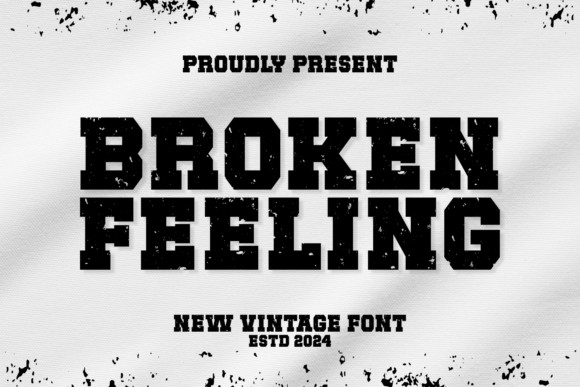
The Perfect Blend of Nostalgia and Edginess: Unleashing the Broken Feeling Font
Have you ever stumbled upon an old photograph, and suddenly, a wave of nostalgia washes over you? The faded colors, the worn-out edges, and the imperfections that tell a story of their own. That’s exactly what happens when you use the Broken Feeling Font – a vintage yet Grunge-inspired typeface that adds a touch of raw sophistication to your designs.
Broken Feeling Font is more than just a font; it’s an experience. It’s the collision of classic styles and contemporary culture that creates a unique visual imprint, setting your designs apart from the rest. Whether you’re a seasoned designer or a creative enthusiast, this font is a valuable addition to your toolkit, allowing you to add an intriguing ambiguity to your projects.
Broken Feeling Font Key Features
- Font Family: Broken Feeling Font
- Character Count: 230+ glyphs, including Latin, Cyrillic, and Greek alphabets
- Unique Characteristics: Irregular, hand-drawn feel with a distressed, vintage aesthetic; includes subtle texture and imperfections to create a unique visual effect
Broken Feeling Font Review
Overall, I found the Broken Feeling Font to be a unique and quirky addition to any design project. ✨ The font’s distressed aesthetic and rough texture give it a worn, vintage feel that’s perfect for projects with a retro vibe.
Here are some things that work well with the Broken Feeling Font:
- ✨ Its distressed texture adds depth and visual interest to any design.
- ✨ The font’s irregularities make it stand out from more traditional, polished fonts.
- ✨ It’s great for creating a sense of nostalgia or retro charm in a design.
- ⚠️ The font may be difficult to read in certain contexts, particularly for long blocks of text.
- ⚠️ The distressed texture can make the font look cluttered or overwhelming if used in excess.
- ⚠️ The font’s irregularities can make it challenging to use in situations where precise typography is crucial.
Overall, I think the Broken Feeling Font is a great choice for designers who want to add a touch of personality and whimsy to their projects. While it may not be suitable for every design context, it’s a versatile and unique font that’s sure to spark some creativity.
Broken Feeling Font is suitable for a variety of design projects, including:
- Business cards and brochures
- Typography-based art and illustrations
- Custom logos and branding
Remember to use Broken Feeling Font sparingly and thoughtfully to avoid overwhelming your design.